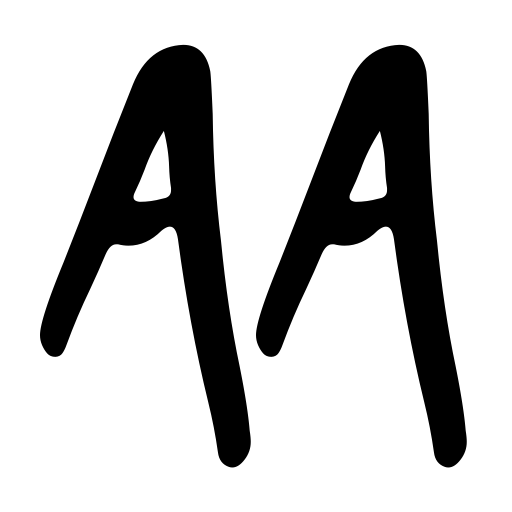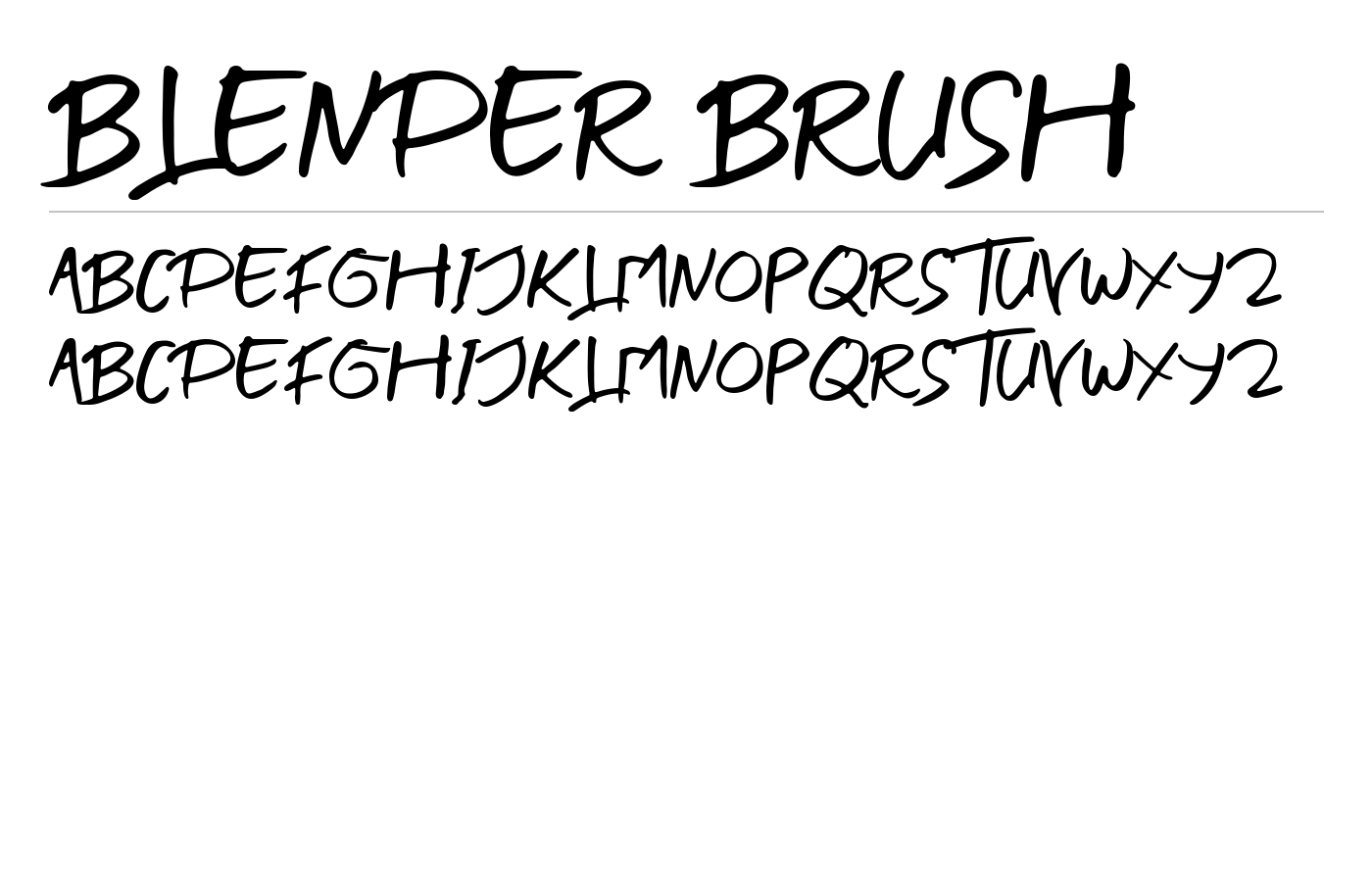
Blender Brush is a casual, handwritten-style font that mimics lively brush strokes with a natural, flowing feel. Its medium weight and energetic letterforms make it perfect for creative projects, adding a friendly, informal touch to logos, posters, and personal branding. This font is ideal for designs that want to convey authenticity and artistic flair while remaining clear and approachable.
BLENDER BRUSH Font
About BLENDER BRUSH Font
| Font family | BLENDER BRUSH Font |
| Designer | AMINMARIO STUDIO |